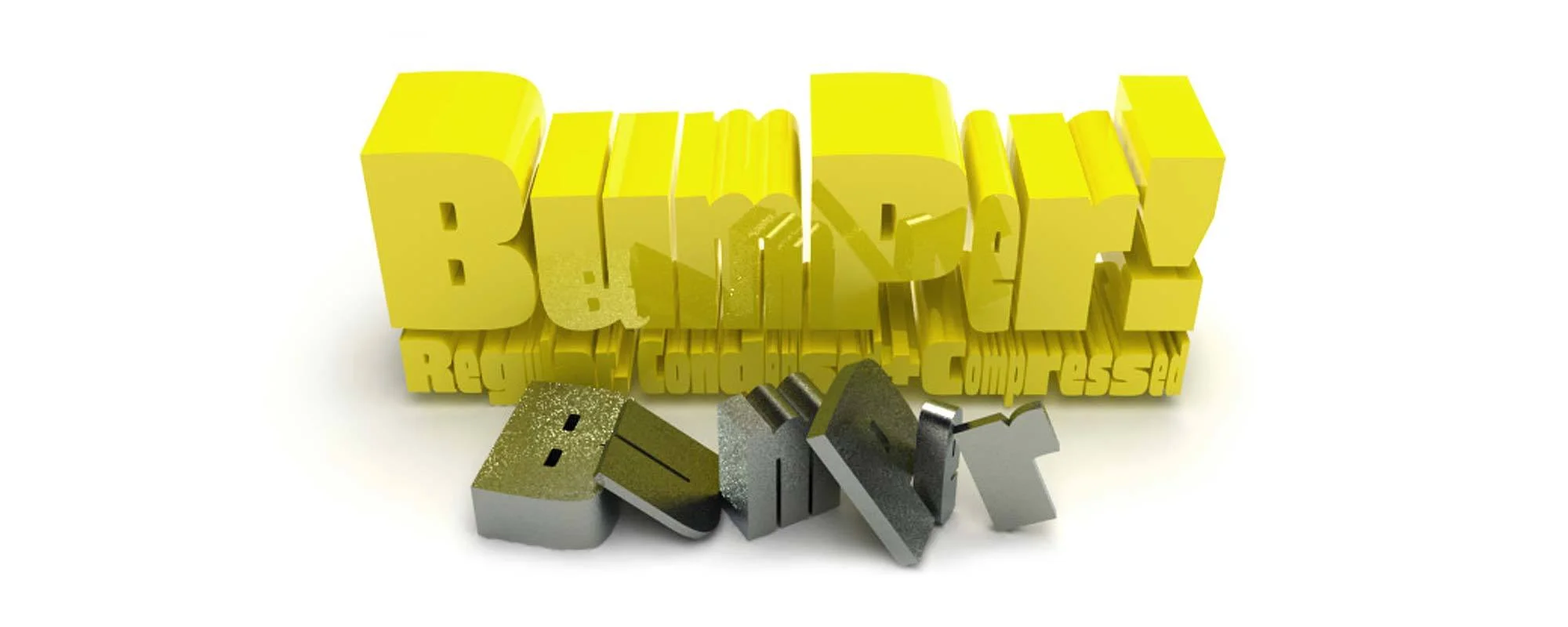
A display typeface from HvD Fonts designed for large-scale, high-impact headline use.
Bumper is a display-oriented typeface from HvD Fonts, built for headline and poster applications where presence at large sizes matters. Without access to full specimen data, specific weight and style details remain unconfirmed. HvD Fonts is a Munich-based foundry known for considered, professionally finished type families.
The name and foundry context suggest a bold, attention-grabbing display sans intended for headlines and large-scale use rather than text setting.